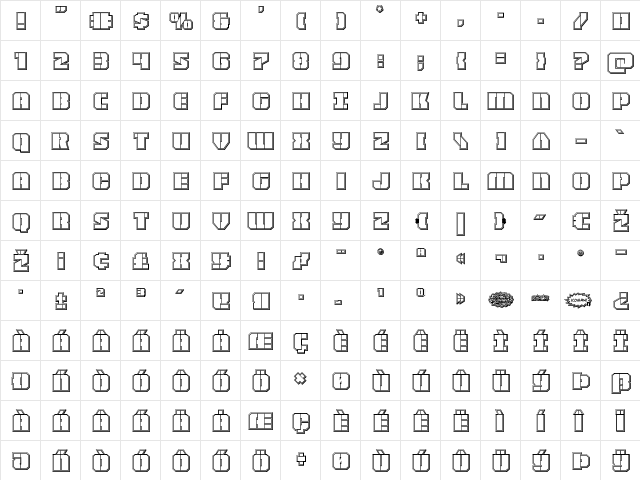
Warp Thruster Engraved Regular
Design Context for Warp Thruster Engraved Typeface
Warp Thruster Engraved is built around its visual character rather than neutral utility — its distinctive forms are designed to make an impression at display sizes.
Font Pairing: Pair with a clean neutral sans-serif for body copy to let Warp Thruster Engraved's character lead without overwhelming the composition.
Pro Tip: Use Warp Thruster Engraved exclusively at display sizes — it was designed to be seen, not read at length. Let a neutral companion handle body copy.